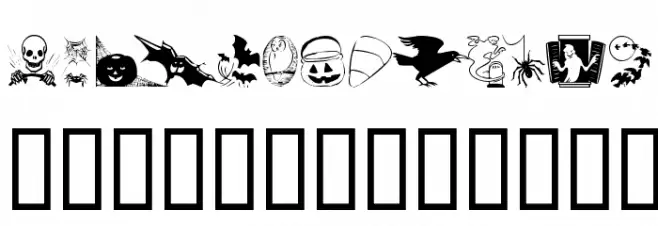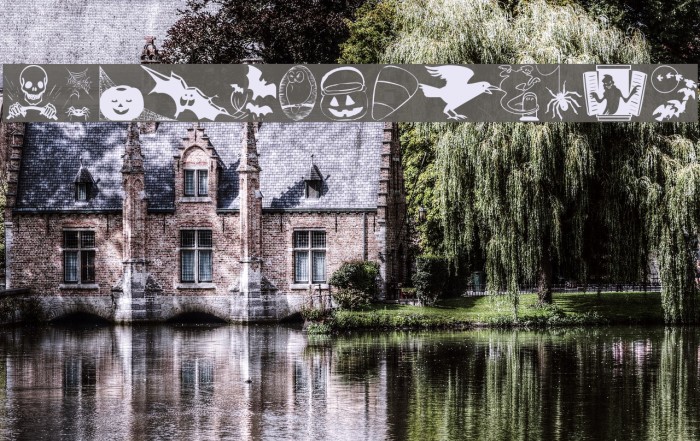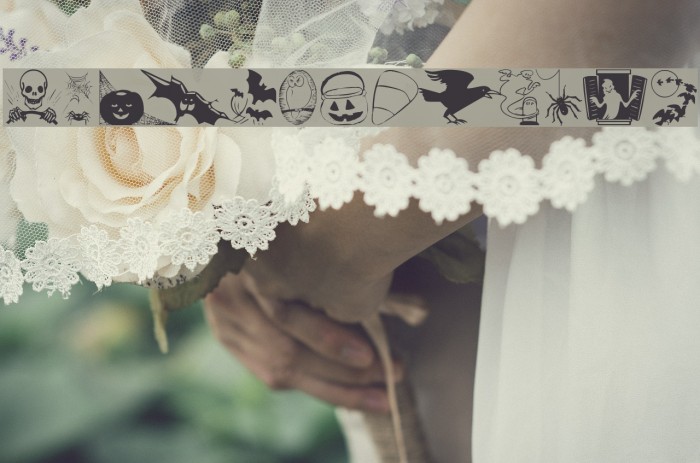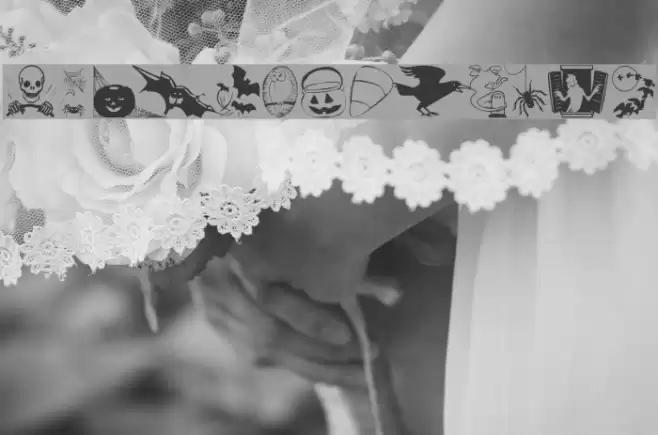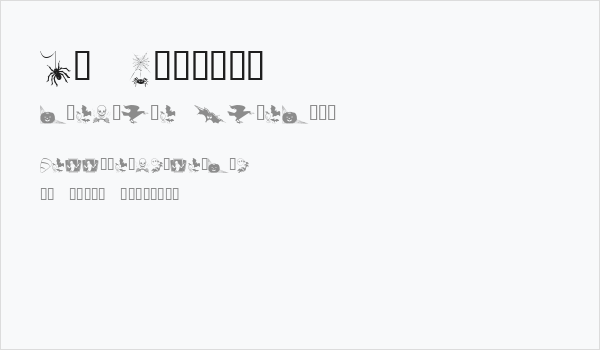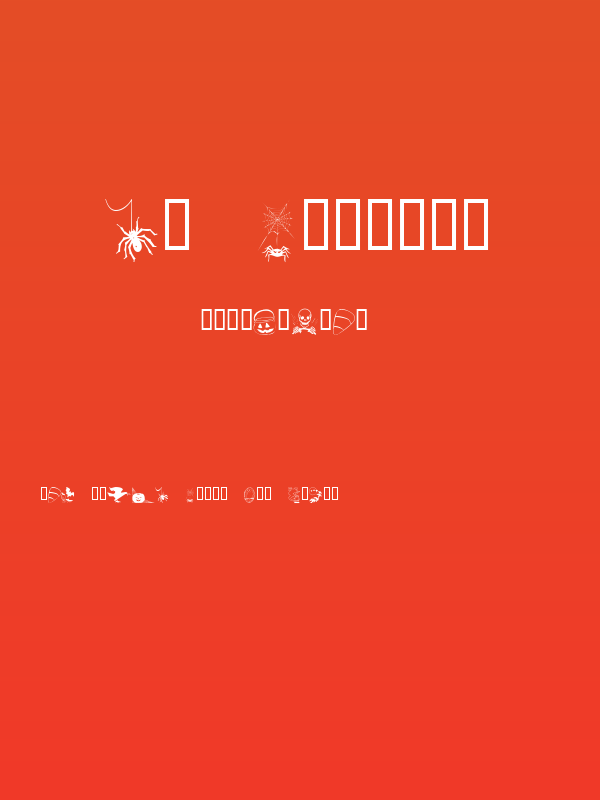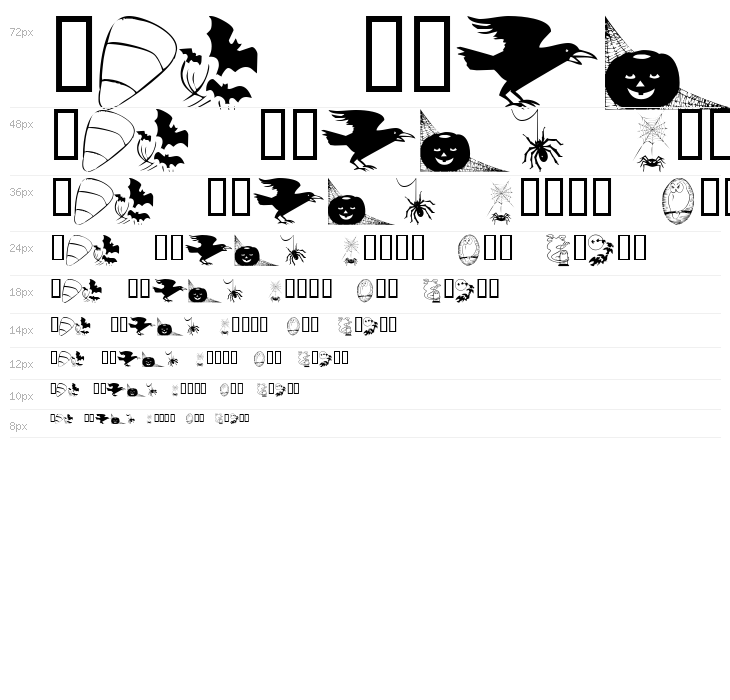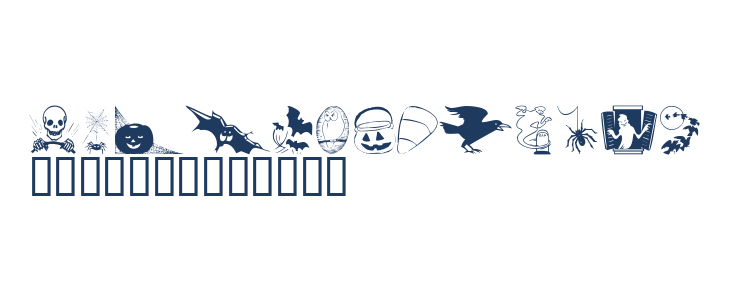
KR Bootown Font
KR Bootown Description
This is a decorative font featuring Halloween-themed illustrations instead of traditional alphanumeric characters. Each character is represented by a unique spooky icon, such as skulls, bats, pumpkins, and other Halloween motifs. The design is playful and thematic, making it ideal for seasonal projects. The icons are detailed and capture the essence of Halloween with a fun and whimsical style.
| Use Case | Logos, Posters, Invitations |
| Proposed Projects | Ideal for Halloween party invitations, themed posters, greeting cards, and festive decorations. |